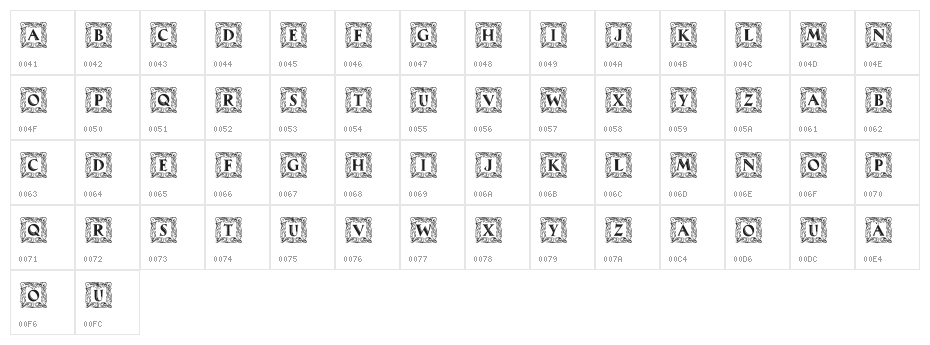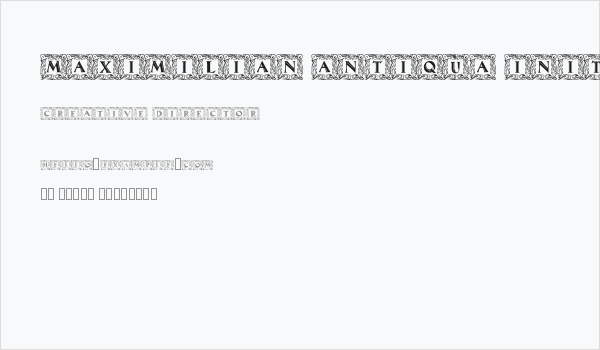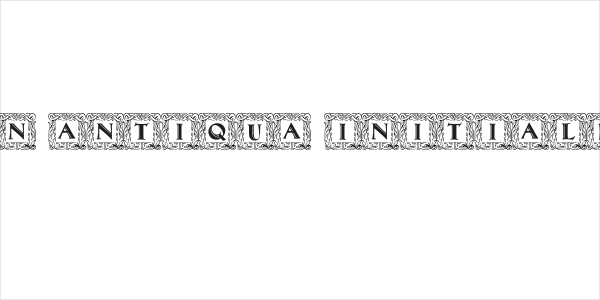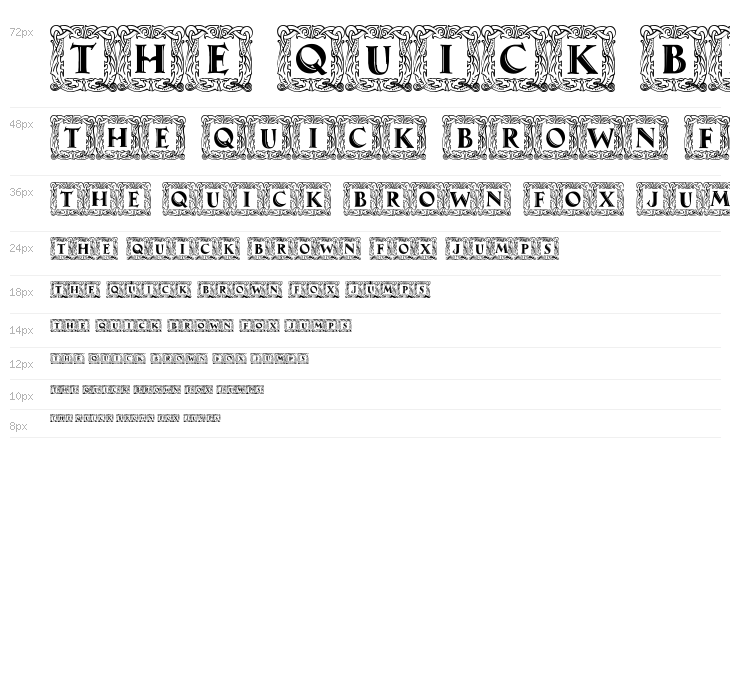
Maximilian Antiqua Initialen Regular Font
Maximilian Antiqua Initialen Regular Description
This font features ornate, decorative capital letters enclosed within intricate borders. Each letter is presented in a bold, serif style, emphasizing a classic and vintage aesthetic. The elaborate borders surrounding each character add a touch of elegance and complexity, making it suitable for projects that require a historical or sophisticated look. The font is designed to capture attention with its detailed artistry, making it ideal for special occasions or formal designs.
| Proposed Projects | Ideal for wedding invitations, historical documents, book covers, or any project needing a touch of classic sophistication. |